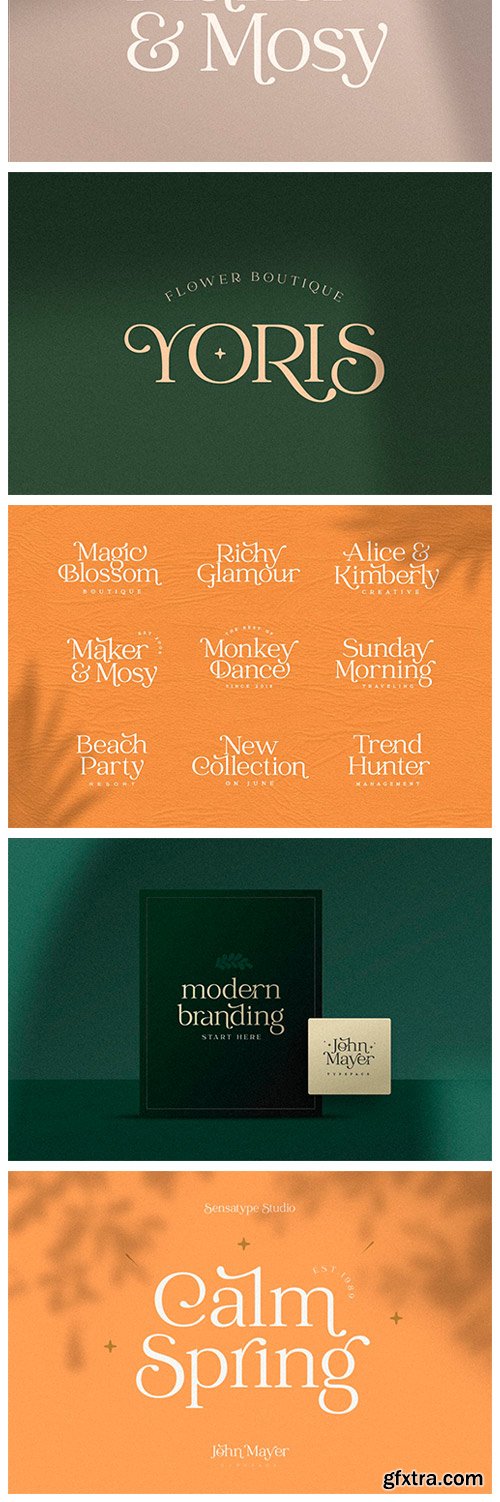
Catchy Mager Font
Catchy Mager Font - Based on our experience as a graphic designer who works for a lot of companies, we often are. Catchy mager font family was designed by zamroni hamzah and published by sensatype studio. Catchy mager regular is a regular truetype font. You can find more information about catchy. Web individual styles from $19.00. Based on our experience as a graphic designer who works for a lot of. Catchy mager is a unique and very elegant font for brand and logo design. Catchy mager contains 1 styles. Catchy mager from sensatype is a unique and very elegant serif font for brand and logo design. It has been downloaded 21320 times.
Based on our experience as a graphic designer who works for a lot of companies, w. You can find more information about catchy. Catchy mager is a unique and very elegant font for brand and logo design. Web catchy mager font jun 15, 2021 catchy mager (former john mayer) is a unique and very elegant font for brand and logo design. Catchy mager regular is a regular truetype font. Catchy mager from sensatype is a unique and very elegant serif font for brand and logo design. Web individual styles from $19.00. Based on our experience as a graphic designer who works for a lot of companies, we often are. Catchy mager contains 1 styles. It has been downloaded 21320 times.
Catchy mager contains 1 styles. Catchy mager regular is a regular truetype font. Catchy mager from sensatype is a unique and very elegant serif font for brand and logo design. Catchy mager is a unique and very elegant font for brand and logo design. Web catchy mager font jun 15, 2021 catchy mager (former john mayer) is a unique and very elegant font for brand and logo design. Web individual styles from $19.00. Based on our experience as a graphic designer who works for a lot of companies, w. 40 users have given the font a rating of 4.67 out of 5. Based on our experience as a graphic designer who works for a lot of. Based on our experience as a graphic designer who works for a lot of companies, we often are.
Based on our experience as a graphic designer who works for a lot of companies, we often are. Based on our experience as a graphic designer who works for a lot of companies, w. Catchy mager regular is a regular truetype font. 40 users have given the font a rating of 4.67 out of 5. Based on our experience as.
Catchy mager regular is a regular truetype font. It has been downloaded 21320 times. Catchy mager contains 1 styles. Catchy mager font family was designed by zamroni hamzah and published by sensatype studio. Based on our experience as a graphic designer who works for a lot of companies, we often are.
Catchy mager font family was designed by zamroni hamzah and published by sensatype studio. Based on our experience as a graphic designer who works for a lot of. Catchy mager from sensatype is a unique and very elegant serif font for brand and logo design. It has been downloaded 21320 times. Web individual styles from $19.00.
Based on our experience as a graphic designer who works for a lot of companies, we often are. Based on our experience as a graphic designer who works for a lot of companies, w. You can find more information about catchy. Catchy mager from sensatype is a unique and very elegant serif font for brand and logo design. 40 users.
Catchy mager contains 1 styles. Catchy mager regular is a regular truetype font. Catchy mager is a unique and very elegant font for brand and logo design. Based on our experience as a graphic designer who works for a lot of companies, w. Based on our experience as a graphic designer who works for a lot of companies, we often.
Catchy mager from sensatype is a unique and very elegant serif font for brand and logo design. Based on our experience as a graphic designer who works for a lot of companies, we often are. Catchy mager regular is a regular truetype font. 40 users have given the font a rating of 4.67 out of 5. Web individual styles from.
Catchy mager is a unique and very elegant font for brand and logo design. Web catchy mager font jun 15, 2021 catchy mager (former john mayer) is a unique and very elegant font for brand and logo design. Web by dafont july 1, 2023. It has been downloaded 21320 times. Web individual styles from $19.00.
You can find more information about catchy. Catchy mager font family was designed by zamroni hamzah and published by sensatype studio. Catchy mager from sensatype is a unique and very elegant serif font for brand and logo design. 40 users have given the font a rating of 4.67 out of 5. Based on our experience as a graphic designer who.
Web by dafont july 1, 2023. Catchy mager contains 1 styles. Based on our experience as a graphic designer who works for a lot of. Based on our experience as a graphic designer who works for a lot of companies, w. 40 users have given the font a rating of 4.67 out of 5.
Based On Our Experience As A Graphic Designer Who Works For A Lot Of Companies, We Often Are.
Catchy mager is a unique and very elegant font for brand and logo design. Based on our experience as a graphic designer who works for a lot of. Catchy mager font family was designed by zamroni hamzah and published by sensatype studio.